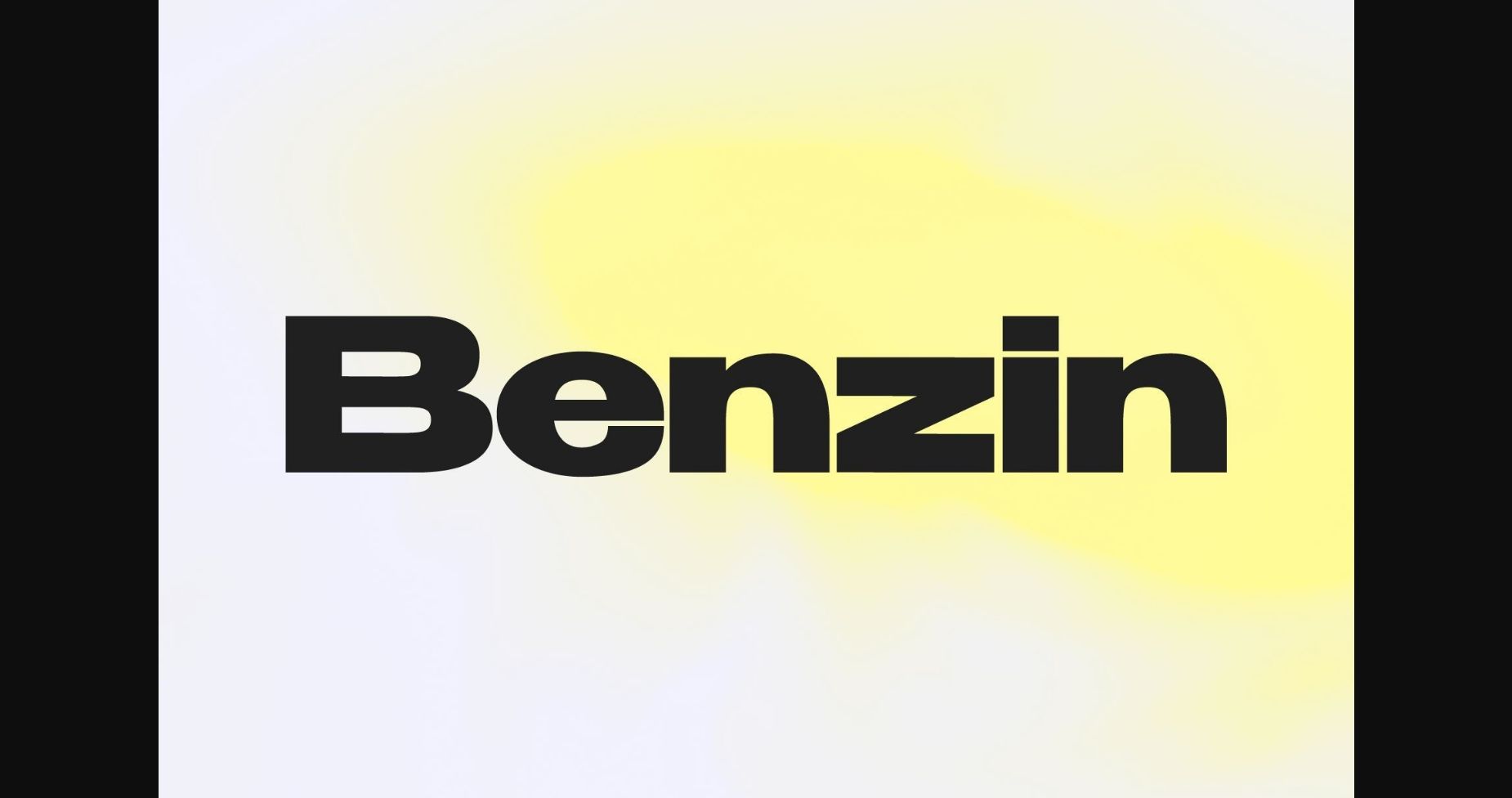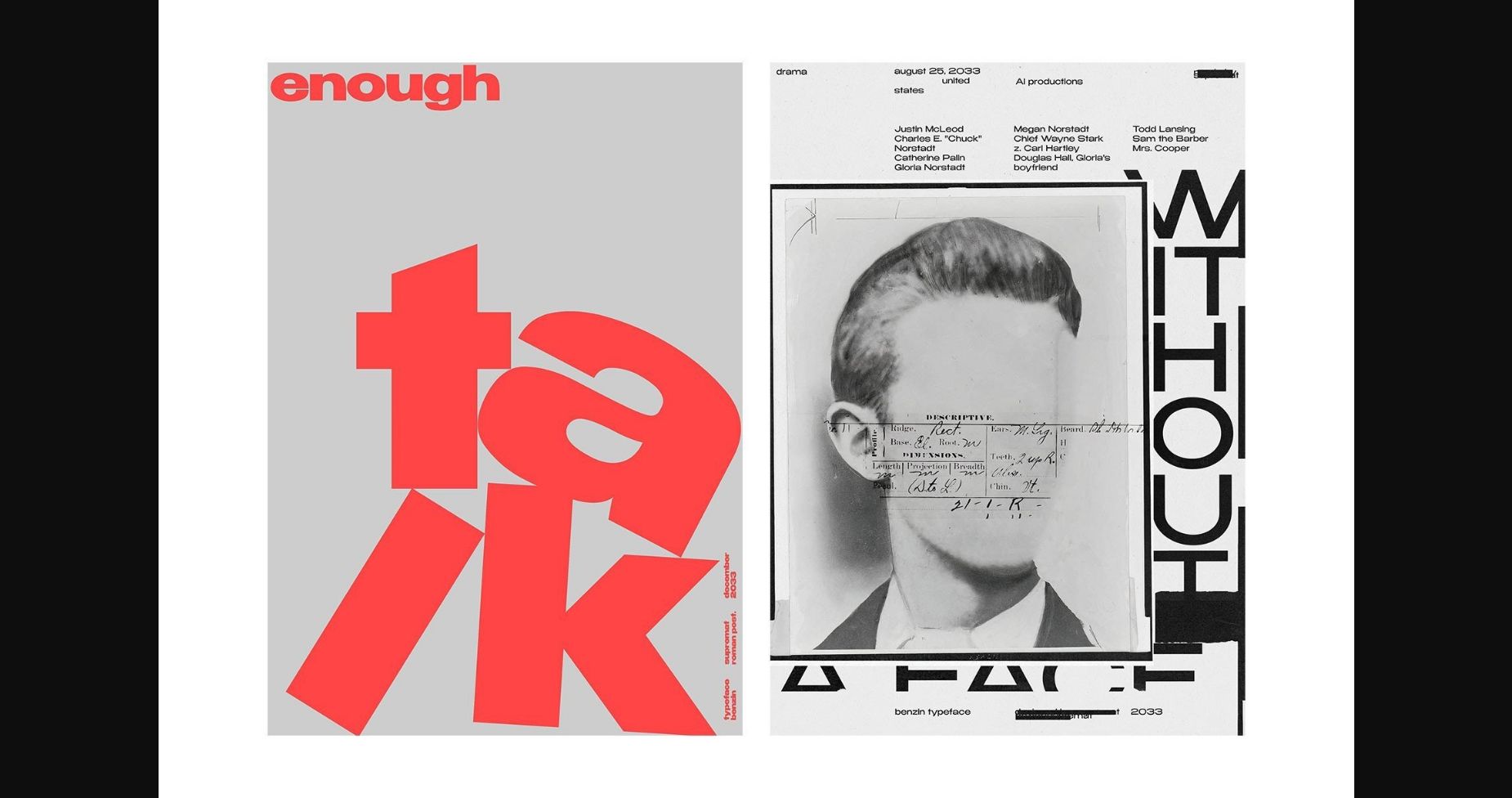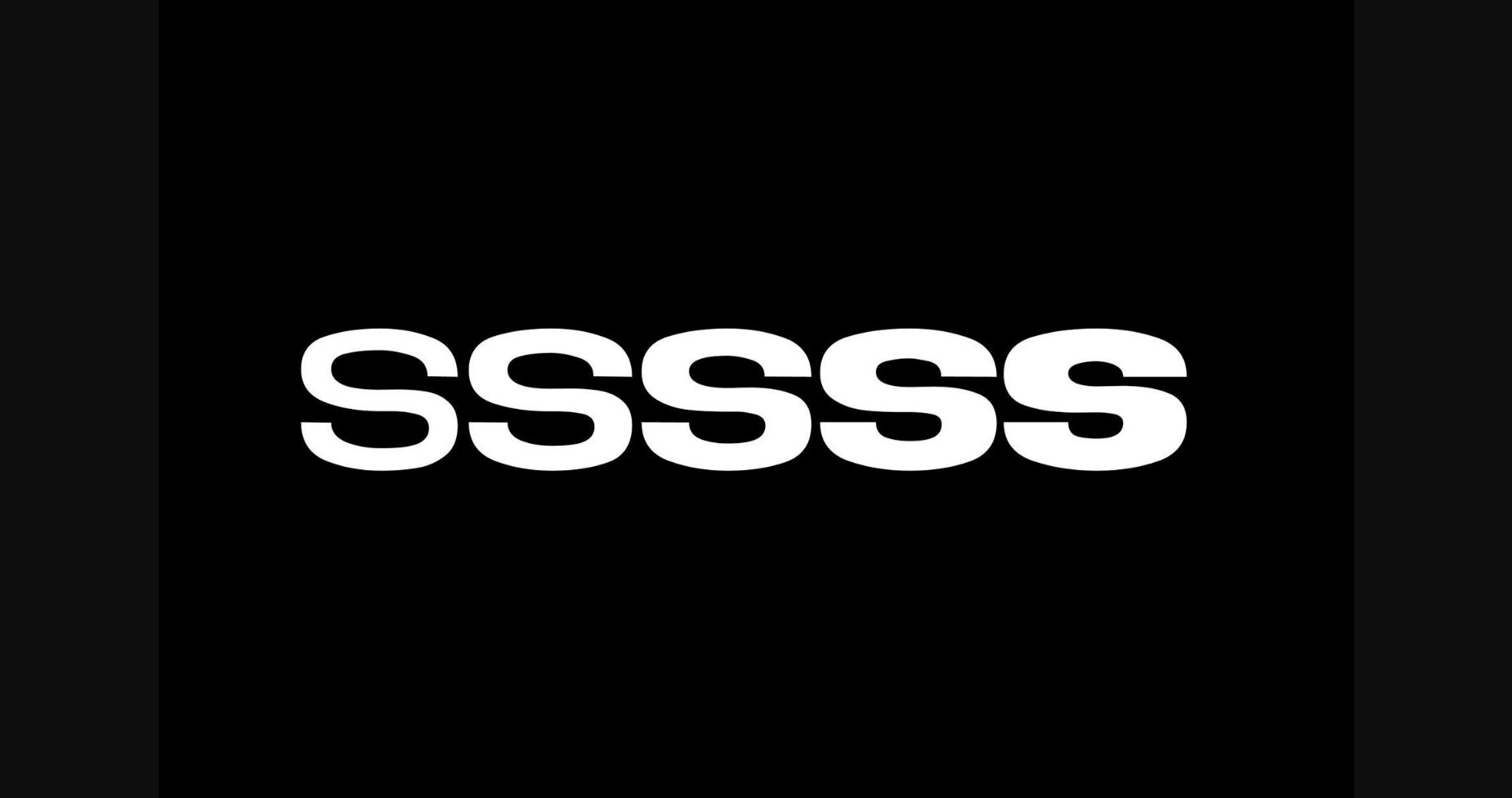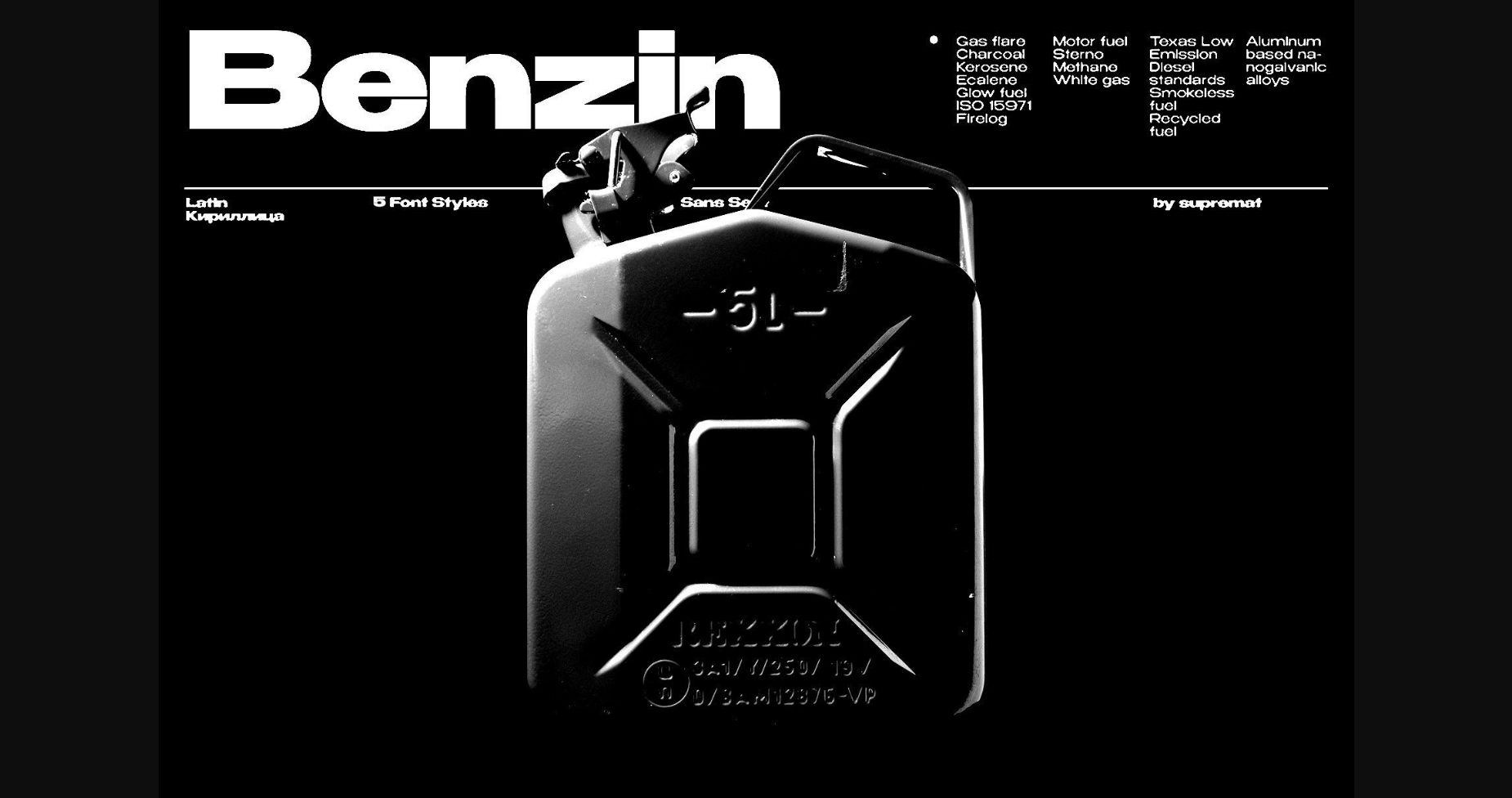
About Benzin Font
Benzin is a geometric sans serif family that comes in 5 weights. This is a universal font that can be used for both headings and paragraphs, thanks to the customized kerning for bold and thin style. In the thin style, the kerning is more sparse, in the bold style it is denser. This allows you to immediately use a bold style in large headlines and posters, and a thin style in small texts and paragraphs. This is very convenient and you don’t need to think about setting up kerning.